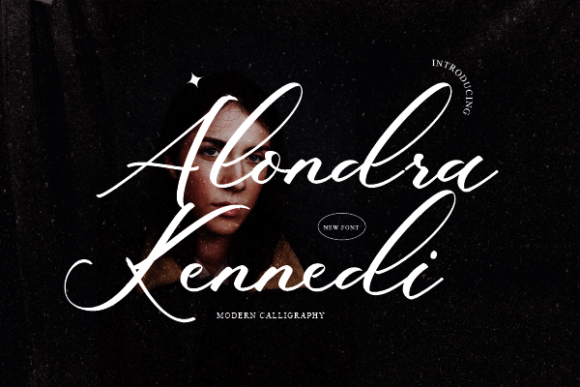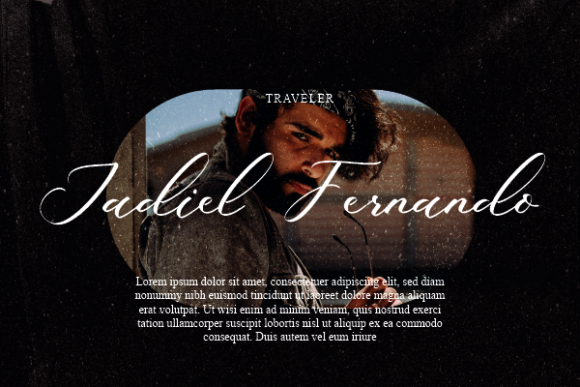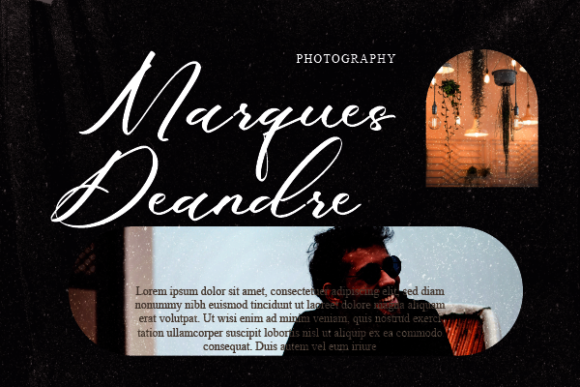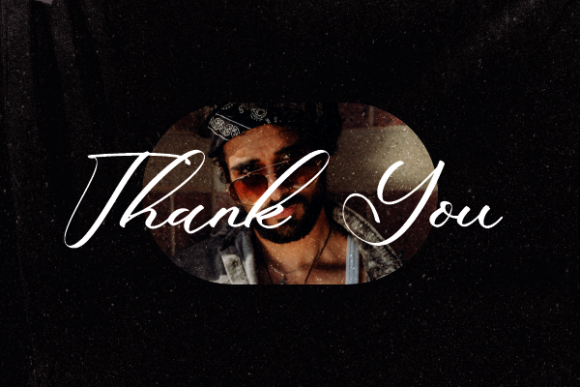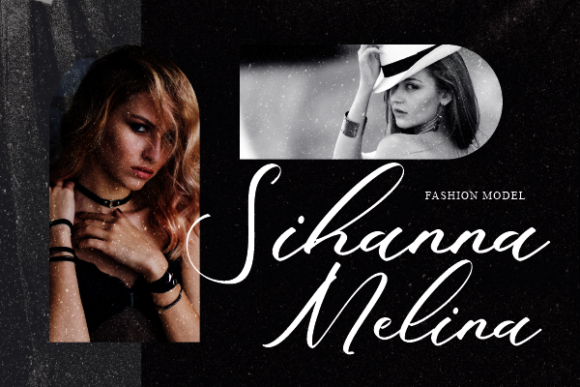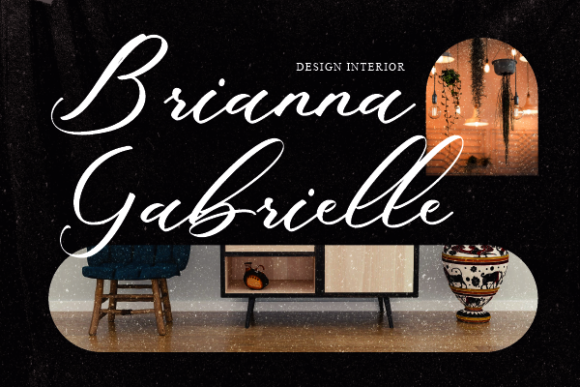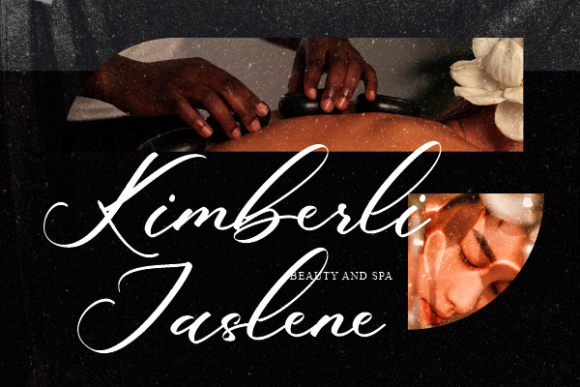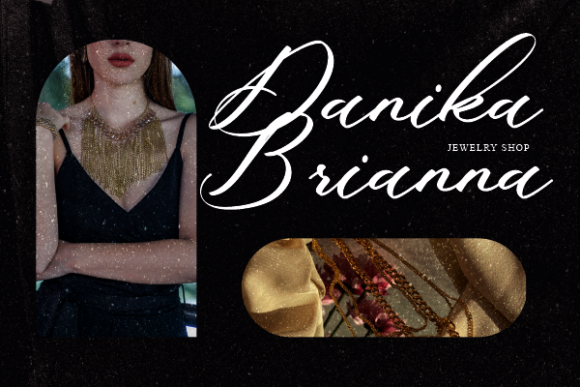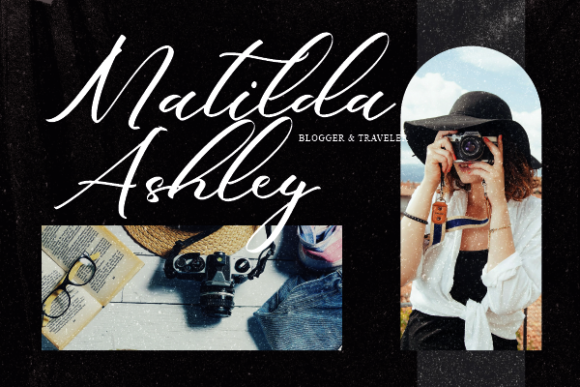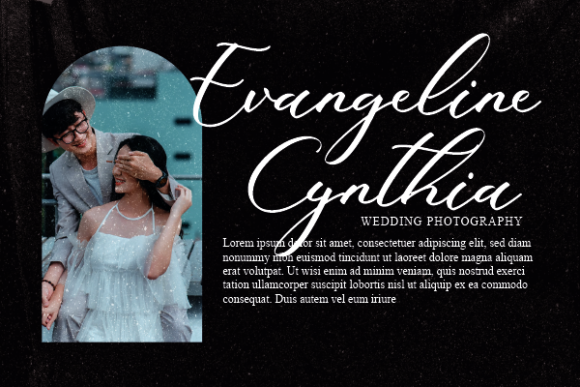
Alondra Kennedi Font
About Alondra Kennedi Font
Alondra Kennedi is not just a font; it’s a statement of style and sophistication. With its delicate and fashionable script, it adds a touch of elegance to every design it graces. Each character is carefully crafted to exude a sense of refined beauty, making it the perfect choice for a wide range of creative projects.
Imagine your brand logo adorned with the graceful curves of Alondra Kennedi, instantly elevating it to a new level of class and distinction. Picture your t-shirt designs coming to life with the exquisite strokes of this font, turning them into wearable works of art. Whether you’re working on creative products, labels, or any other project, Alondra Kennedi has the versatility to shine.
Its effortless charm will captivate your audience and leave a lasting impression. From invitations to social media posts, Alondra Kennedi brings a touch of sophistication that resonates with a modern sense of style. Its sleek lines and elegant form make it a font that stands out in any context, making your designs extraordinary.
And let’s not forget the convenience of its PUA encoding, which grants you easy access to a world of glyphs and swashes, allowing you to infuse your designs with even more personality and flair. With Alondra Kennedi, you have the power to transform ordinary projects into extraordinary works of art.
So, whether you’re crafting a logo that demands attention, creating a stylish t-shirt design, or embarking on any creative endeavor, Alondra Kennedi is your go-to companion. It’s more than a font – it’s a gateway to elegance and refinement, a tool that empowers your creativity, and a key to unlocking the extraordinary in every project you undertake.